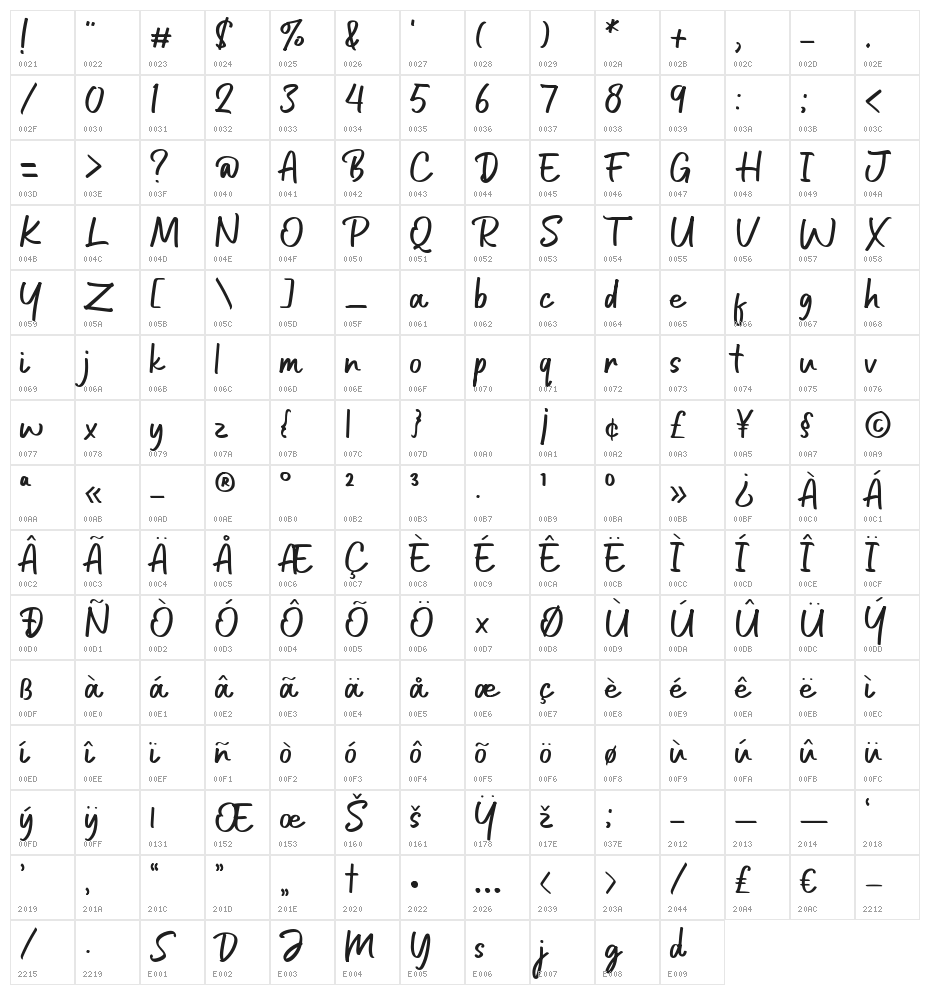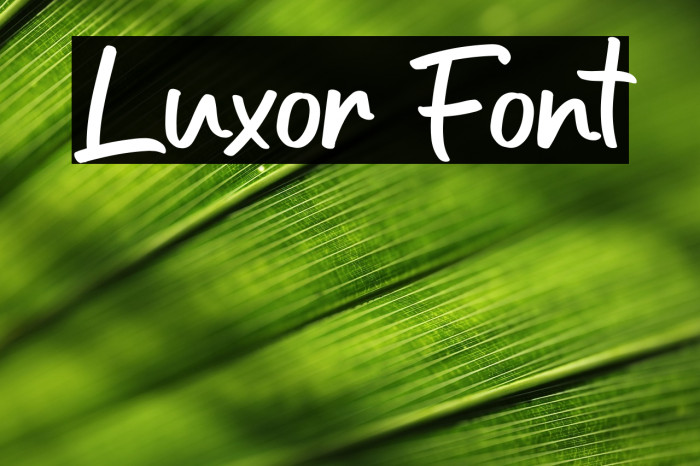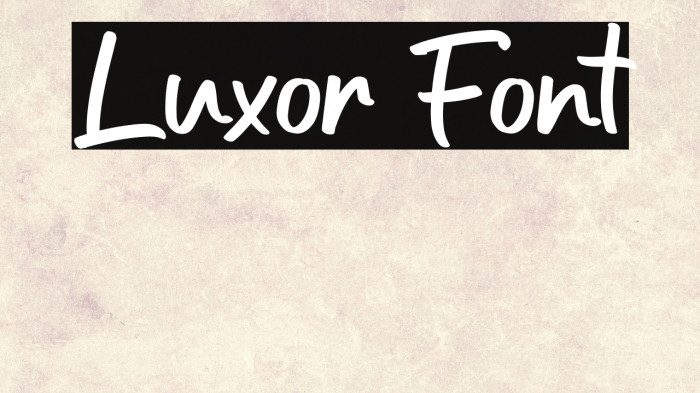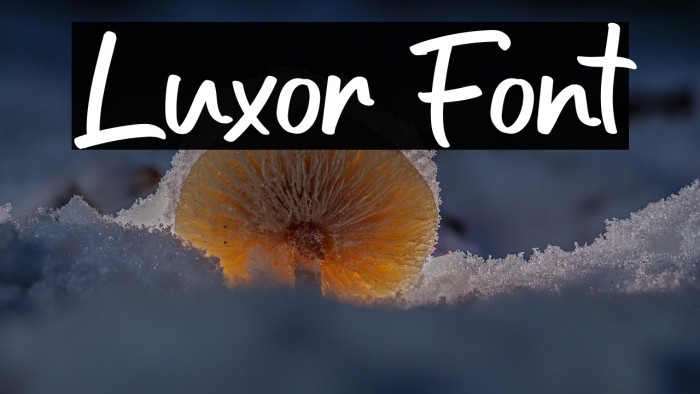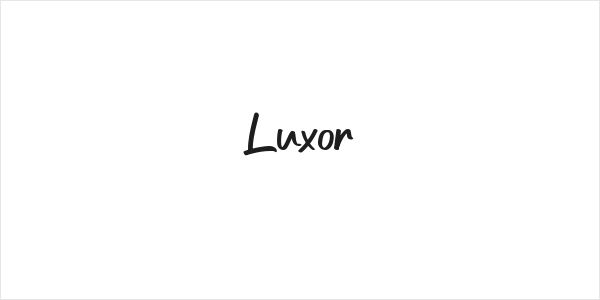
Luxor Font
Luxor Description
This font features a lively and dynamic handwritten style, characterized by its fluid and natural strokes. The uppercase letters are bold and slightly slanted, giving a sense of movement and energy. The lowercase letters maintain a consistent flow, with some characters extending below the baseline, adding to the casual and informal appearance. The numerals are clear and legible, matching the overall playful aesthetic. Special characters are well-integrated, maintaining the font's cohesive look. This font is ideal for projects that require a personal touch, such as invitations, greeting cards, or branding materials that aim to convey friendliness and approachability.
| Proposed Projects | Ideal for invitations, greeting cards, personal branding, and informal communication. |